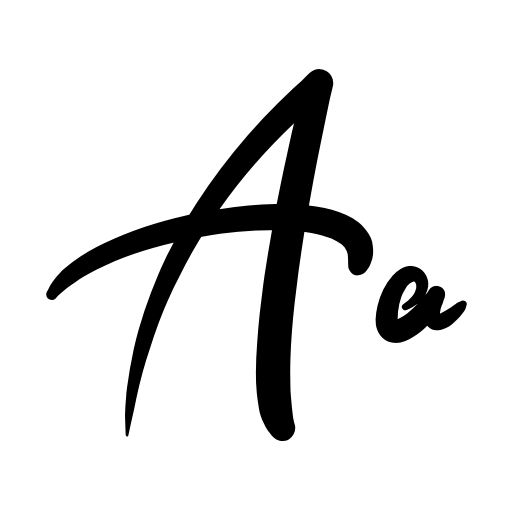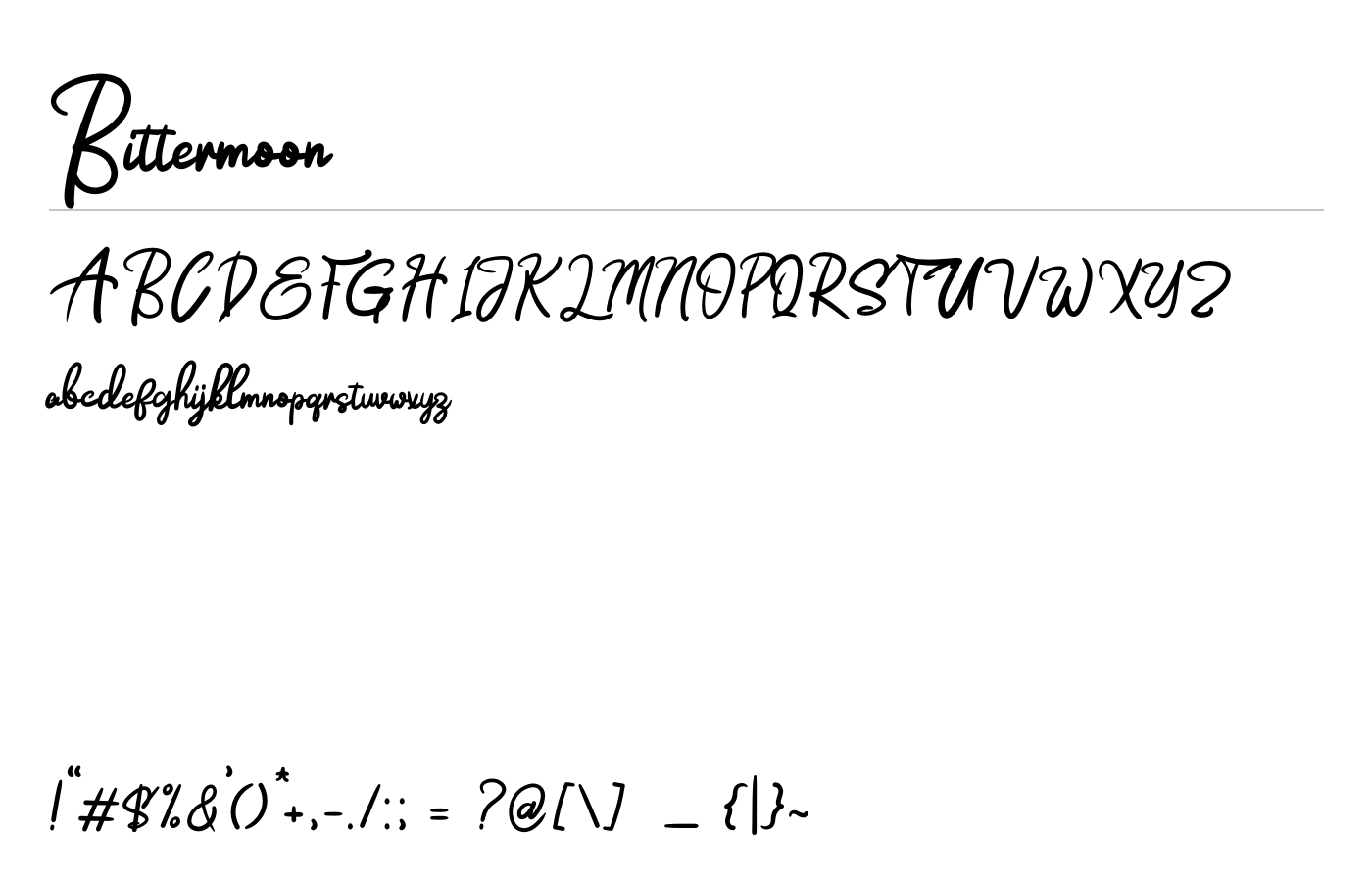
Bittermoon is a playful and elegant script font with a casual handwritten feel, featuring smooth, rounded strokes and moderate contrast for easy readability. Its mix of flowing uppercase letters and compact, connected lowercase forms make it perfect for branding, invitations, and creative projects where a personal and charming touch is desired. This font works well in logos and headlines that need a friendly yet stylish appearance.
Bittermoon Font
| Designer | Prio Nurokhim Aji |